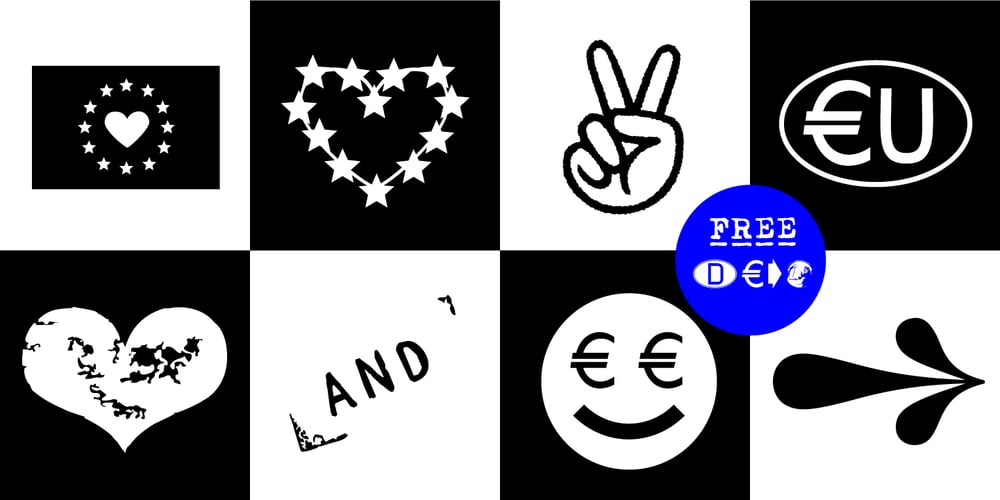
Euro Icon Kit Font Family was designed by Manuel Viergutz and published by TypoGraphicDesign. Euro Icon Kit contains 2 styles and family package options. The typeface EURO Icon Kit is designed at 2020 for the font foundry Typo Graphic Design by Manuel Viergutz. The display font is inspired by the here and now. 763 glyphs incl. icons, dingbats & symbols. Decorative extras like arrows, emojis, ornaments, geometric shapes, catchwords, decorative ligatures (type the word #LOVE for ❤ or #SMILE for ☺ as OpenType-Feature dlig) and stylistic alternates (20 stylistic sets) + sign of the zodiac.Have fun with this font & use the DEMO-Font (with reduced glyph-set) for FREE!